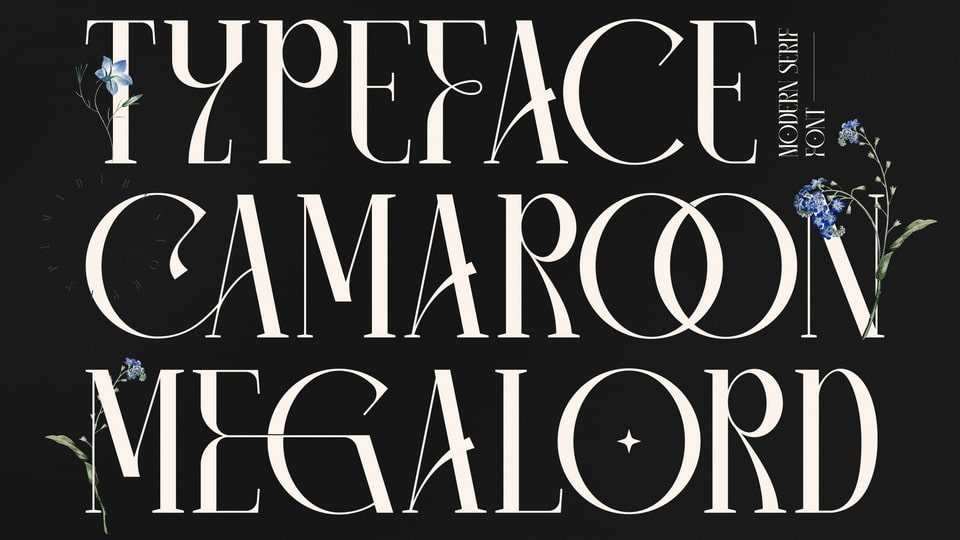
Download Camaroon Megalord font, a modern and classy serif typeface that has own unique style and impressive look. Camaroon Megalord font is perfect for an elegant and luxury logo, book or movie title design, fashion brand, magazine, clothes, lettering, quotes, and so much more.